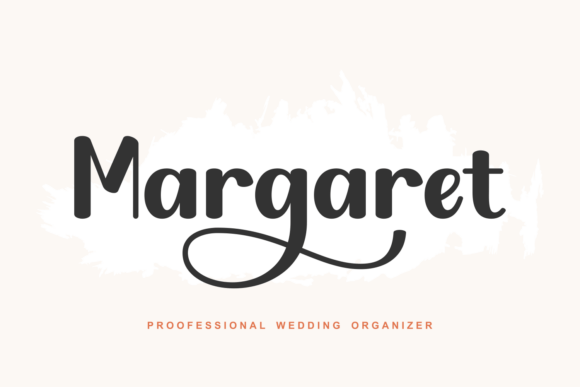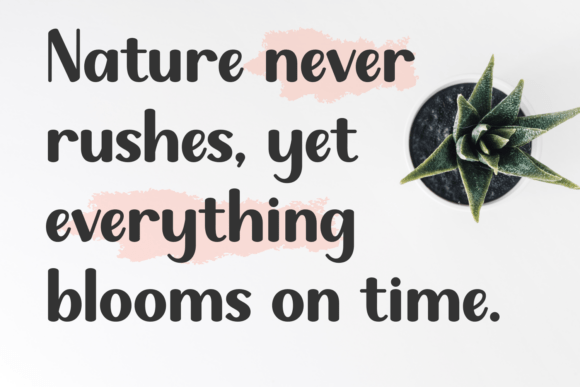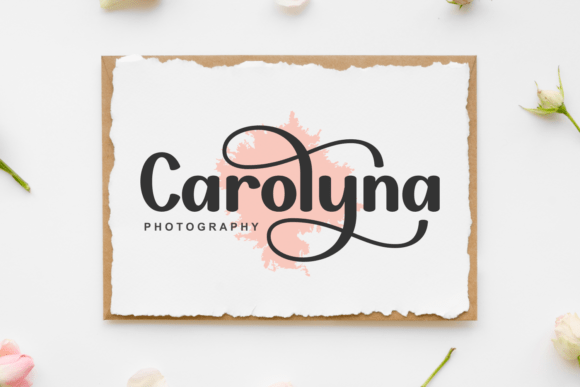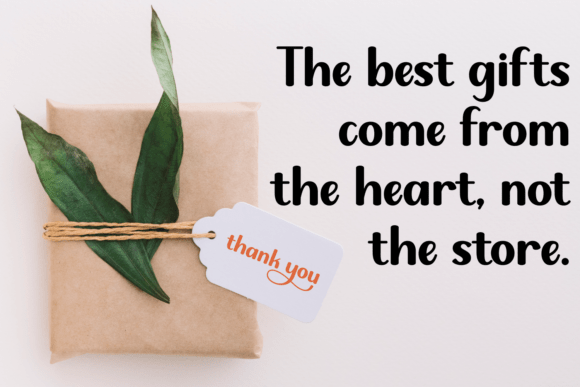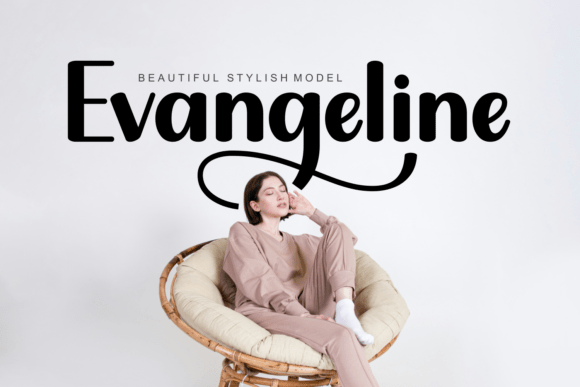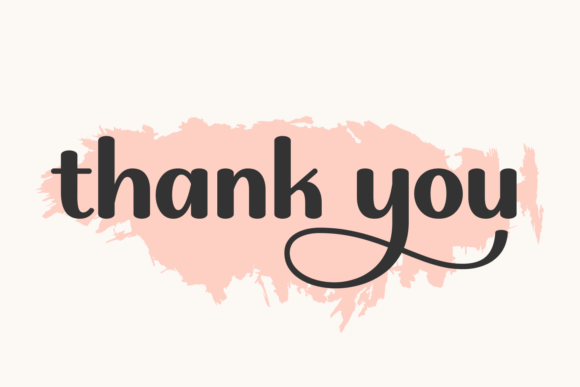
Introduction to Monday Sprinkle Font
Have you ever stumbled upon a font that instantly brightens up your creative space? For me, that moment came when I discovered the delightful Monday Sprinkle Font. As I sat at my desk, sipping my morning coffee, I was browsing through a collection of free fonts when I came across this charming handwritten font. Its playful charm and elegant touch immediately caught my attention, and I couldn’t wait to experiment with it.
| 📌 Product Name | Monday Sprinkle Font |
| 👤 Author | Kelik – 7NTypes |
As designers, we’re always on the lookout for high-quality design resources that can elevate our creative projects. The Monday Sprinkle Font is one such treasure that can add a fresh and whimsical feel to any design. Whether you’re working on a planner page, kids’ product, quote print, logo, or social media post, this font is sure to bring a smile to your face and a touch of magic to your design.
With its smooth curves, cute sparkles, and bouncy letterforms, the Monday Sprinkle Font is a must-have for any designer looking to add a personal touch to their work. Plus, with a transparent background, you can easily use it on any design without worrying about a distracting background. Download the Monday Sprinkle Font today and start sprinkling some creativity into your designs!
Key Features of Monday Sprinkle Font
- High-quality, elegant design perfect for creative projects, including wedding invitations, greeting cards, and more.
- Includes a transparent background, allowing for seamless integration with various design elements and backgrounds.
- Features a unique, whimsical design with intricate details and ornate flourishes, adding a touch of sophistication to any project.
Honest Review: Monday Sprinkle Font
I recently came across the Monday Sprinkle Font, and I must say it’s a great addition to any designer’s collection. This free download is perfect for a creative project that needs a touch of whimsy and playfulness.
What works well about the Monday Sprinkle Font is its versatility. It comes with a transparent background, making it easy to use in any design scenario. The font is also highly customizable, allowing designers to adjust the size, color, and style to fit their needs.
- High-quality design that’s perfect for a creative project
- Transparent background for easy design integration
However, there are a few limitations to consider. The font may not be suitable for formal or professional projects, as it has a more playful and childlike feel. Additionally, some users may find the font’s style too simplistic or generic.
Overall, I think the Monday Sprinkle Font is a great design resource for designers looking to add a touch of personality to their projects. While it may not be the best choice for every project, it’s definitely worth considering for a creative and fun design.
Rating: 4/5 ⭐️
To get the most out of the Monday Sprinkle Font, try using it in combination with other design elements, such as icons and graphics. Experiment with different font sizes and colors to create a unique look. You can also use it to create a consistent brand identity across all your marketing materials.
The Monday Sprinkle Font is perfect for any creative project, from social media graphics to brochures and business cards. It’s also great for adding a touch of personality to your presentations and documents. With its high-quality design and transparent background, you can use it in a variety of contexts, from design to marketing.